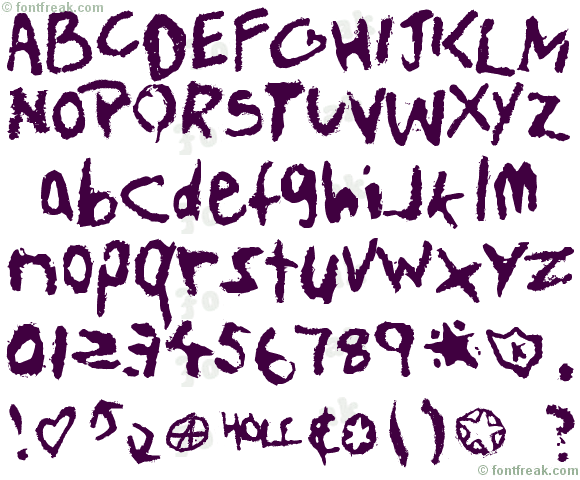
teen spirit
About teen spirit
The Teen Spirit font by Steven J. Lundeen is a captivating display typeface that embodies a youthful and rebellious spirit. Released in 1997, this freeware font captures the essence of the vibrant culture of the 90s, making it an ideal choice for projects seeking a touch of nostalgia. The font features a unique handwritten style, characterized by its irregular stroke weight and energetic appearance. The letters are artfully crafted with a rough texture that evokes a sense of spontaneity and creativity, making it visually engaging and memorable.
With its playful aesthetic, Teen Spirit is particularly suited for a variety of design applications. It shines in contexts such as concert posters, music album covers, and skateboarding graphics, where a bold statement is essential. Additionally, it can be effectively used for youth-oriented marketing materials, social media graphics, and trendy merchandise, appealing to a demographic that values authenticity and individuality. Graphic designers and small business owners targeting a younger audience will find this font a valuable addition to their toolkit.
The Teen Spirit font free download offers an accessible option for content creators looking to infuse their projects with character and flair. Its distinctive style sets it apart from more conventional typefaces, lending an air of creativity and boldness that is often sought after in modern design. Whether you're crafting a vibrant flyer or a dynamic digital campaign, Teen Spirit promises to deliver a visually striking impact. This font stands out not only for its unique texture and energetic vibe but also for its ability to resonate with a generation that embraces self-expression and artistic freedom.